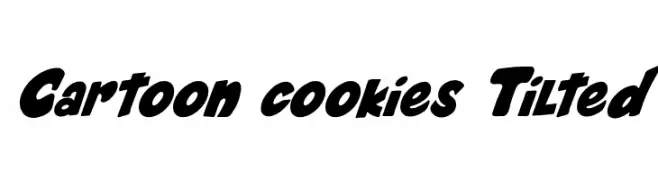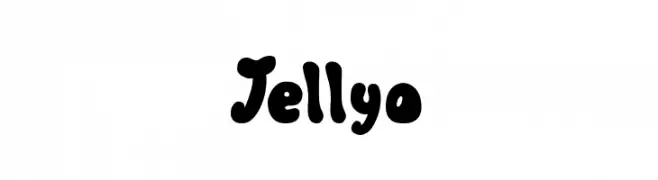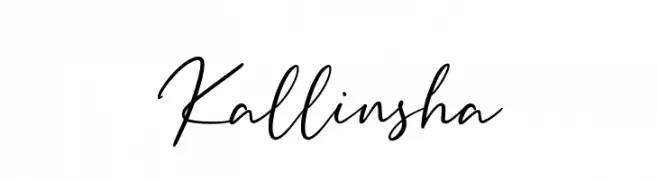
A bold, dynamic script font with fluid, interconnected strokes and a modern, expressive style.
A graceful and fluid script font with elegant, connected strokes.
A playful and elegant script font with a handwritten touch.
A stylish cursive font with elegant, flowing characters.
A dynamic and expressive script font with fluid, cursive strokes.
A fluid, cursive font with a natural handwriting style.
A playful, hand-drawn font with a rough, bold style.
A playful, rounded font with smooth curves and consistent line thickness.
A modern, geometric font with rounded edges and consistent height.
A modern decorative font with flowing, interconnected strokes and elegant curves.
A bold, italic script font with dynamic and fluid characters.
A playful, bold, and hand-drawn style font with rounded characters.
A bold, playful font with a mix of curves and sharp edges, ideal for creative designs.
A bold, playful font with a three-dimensional effect and exaggerated serifs.
A bold, gothic Blackletter font with intricate, angular designs.
A playful, dripping font with irregular outlines and dynamic shapes.
A bold, playful font with irregular, organic shapes and a hand-drawn appearance.
A playful and artistic script font with bold, cursive letterforms.
A bold, italicized font with a modern, energetic style.
A bold, geometric font with a modern, structured design.
An elegant and flowing script font with graceful curves and smooth strokes.
A playful, handwritten font with smooth curves and a casual style.
A casual, handwritten script font with a smooth, connected flow.
A bold, italic script font with elegant, flowing curves and a strong presence.
A modern, elegant script font with fluid curves and a refined style.
An elegant, cursive font with a flowing, italicized style.
A bold, hand-painted style font with a distressed, artistic texture.